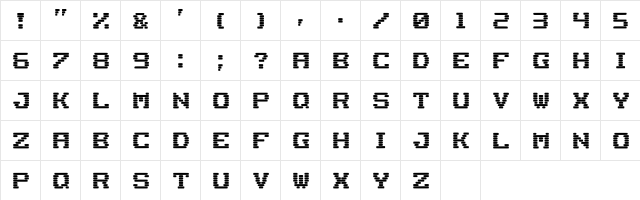
Redactor Regular Font Preview
Redactor Regular
Design Context for Redactor Typeface
Redactor is a composed and adaptable typeface that performs quietly and consistently across a wide range of design contexts.